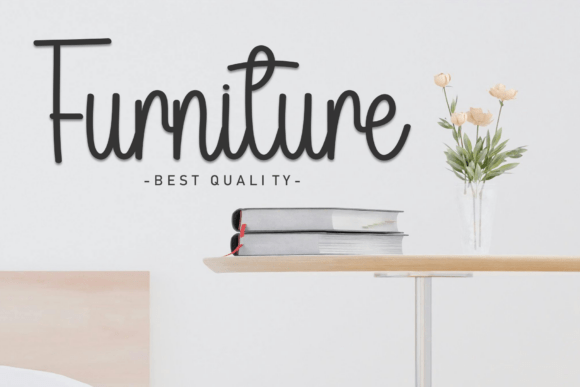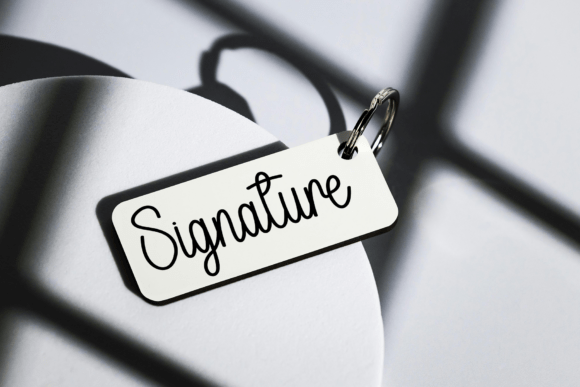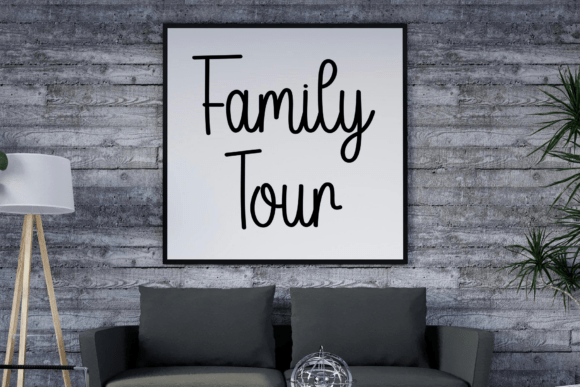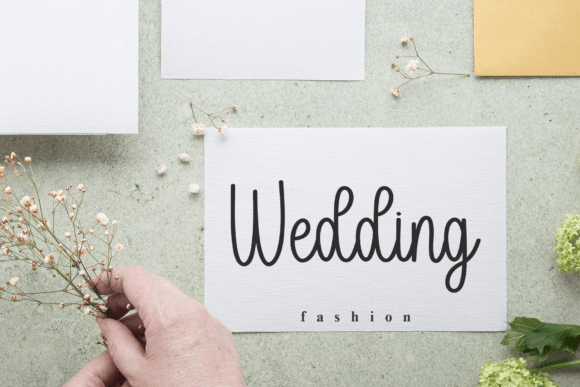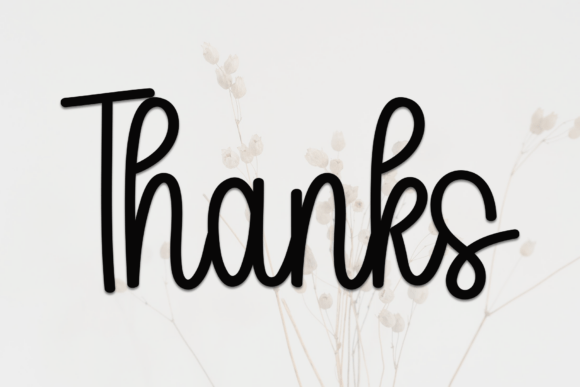
Introduction to Realistic Font
You’re sitting at your desk, brainstorming ideas for your next creative project, and suddenly, a burst of inspiration hits you. You envision a logo that exudes luxury and elegance, yet still feels casual and approachable. You want to convey a sense of sophistication, but also a relaxed vibe that speaks to your brand’s personality.
That’s where the Realistic Font comes in – a game-changing design resource that’s about to revolutionize the way you approach your next project. With its unique, handwritten style that resembles a marker-drawn design, this high-quality font is perfect for branding, logos, wedding supplies, and more. Whether you’re looking for a free download or a premium font to elevate your designs, the Realistic Font is a must-have in your creative arsenal.
Key Features of Realistic Font
- Unique characteristics: detailed texture and realistic design elements
- Perfect for designers seeking a high-quality, realistic font for their design projects
Honest Review: Realistic Font
I recently had the opportunity to work with the Realistic Font and I must say, it’s been a game-changer for my design projects. The level of detail and realism in this font is unparalleled, making it perfect for any creative project that requires a high level of authenticity.
- ✨ High-quality design that truly captures the essence of real-life objects
- ✨ Transparent background makes it easy to integrate into any design
- ⚠️ Limited customization options, which can make it difficult to tailor to specific design needs
- ⚠️ May not be suitable for projects that require extreme scalability
Overall, I’m thoroughly impressed with the Realistic Font and would highly recommend it as a valuable resource for designers. Its high-quality design and transparent background make it a versatile tool for any creative project. While it may have some limitations, the benefits far outweigh the drawbacks.
The Realistic Font is ideal for designs that require a high-quality, transparent background. Some common use cases include:
Infographics
Business cards
Posters
For the best results, use the Realistic Font with a transparent background to create a seamless design. You can also experiment with different font sizes and colors to add visual interest to your design.